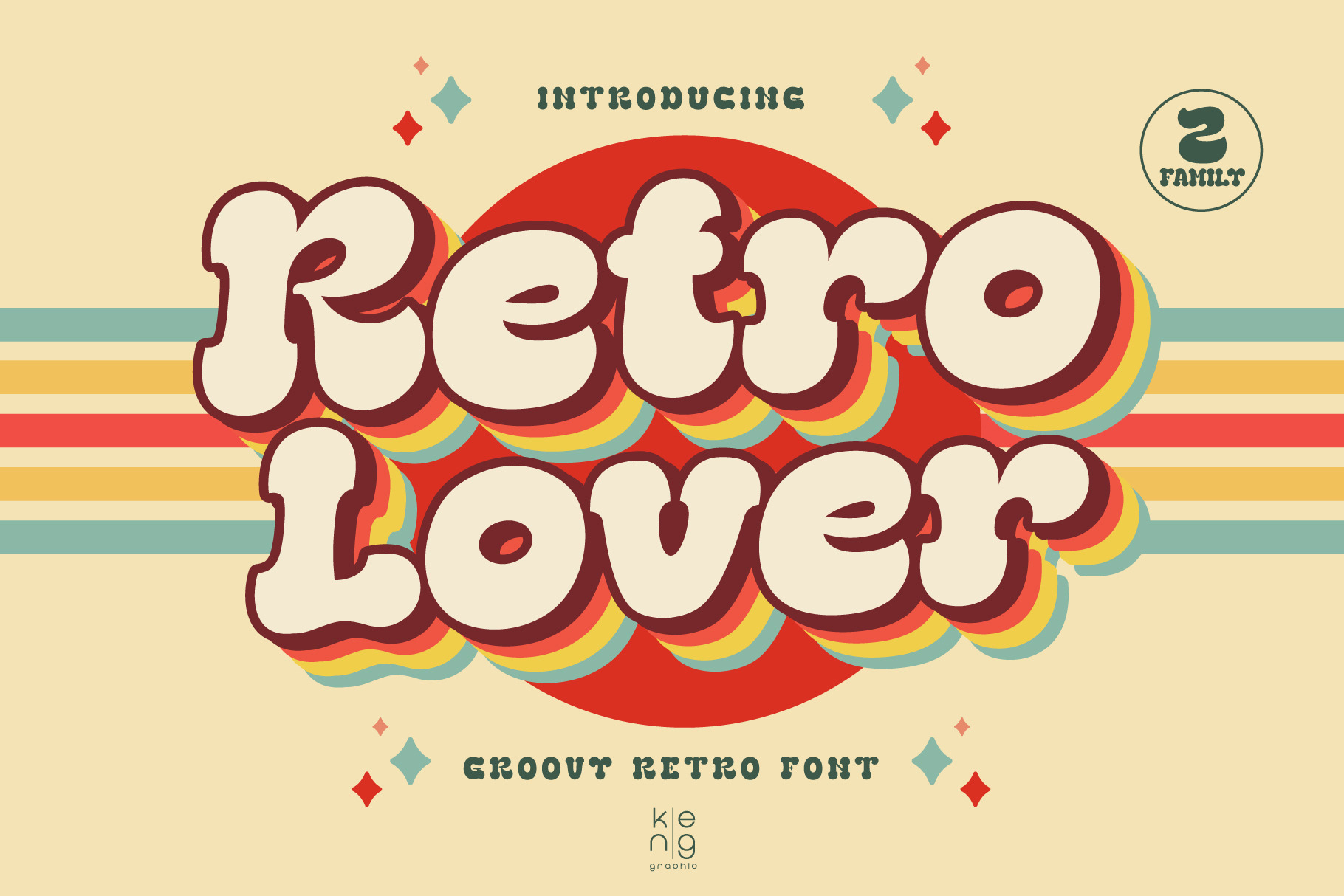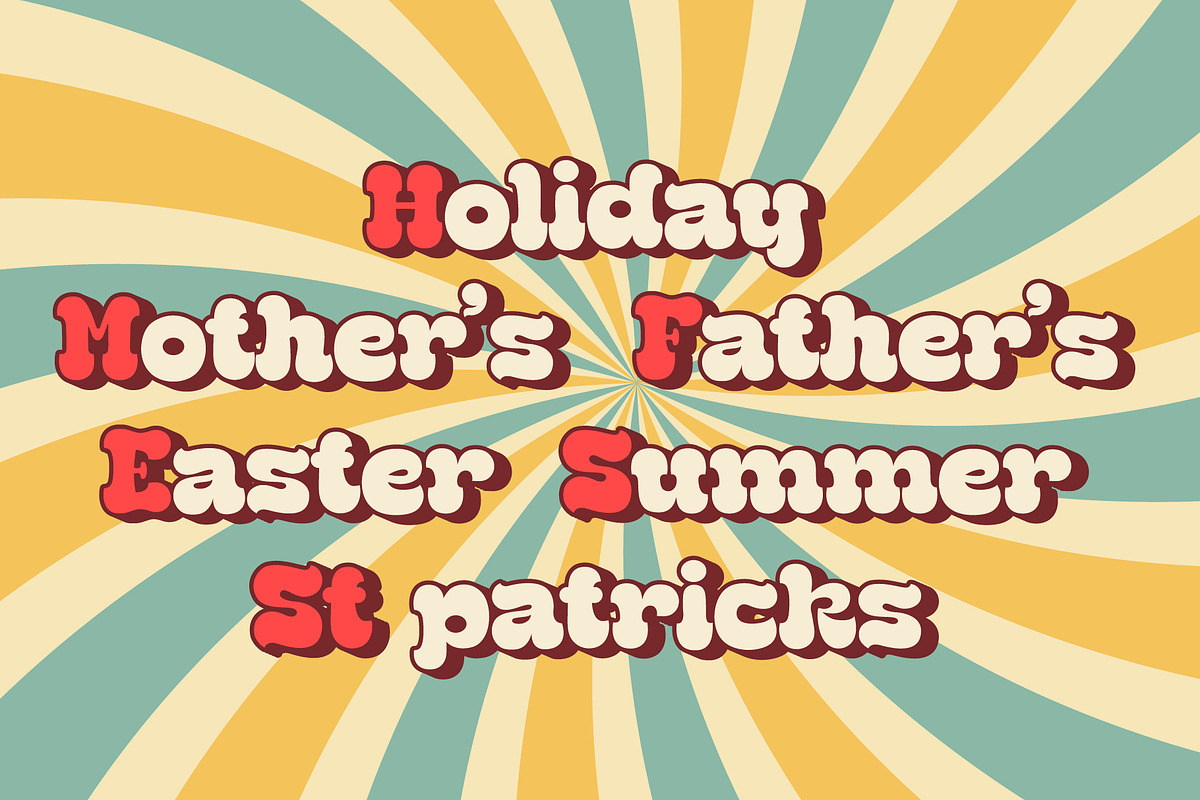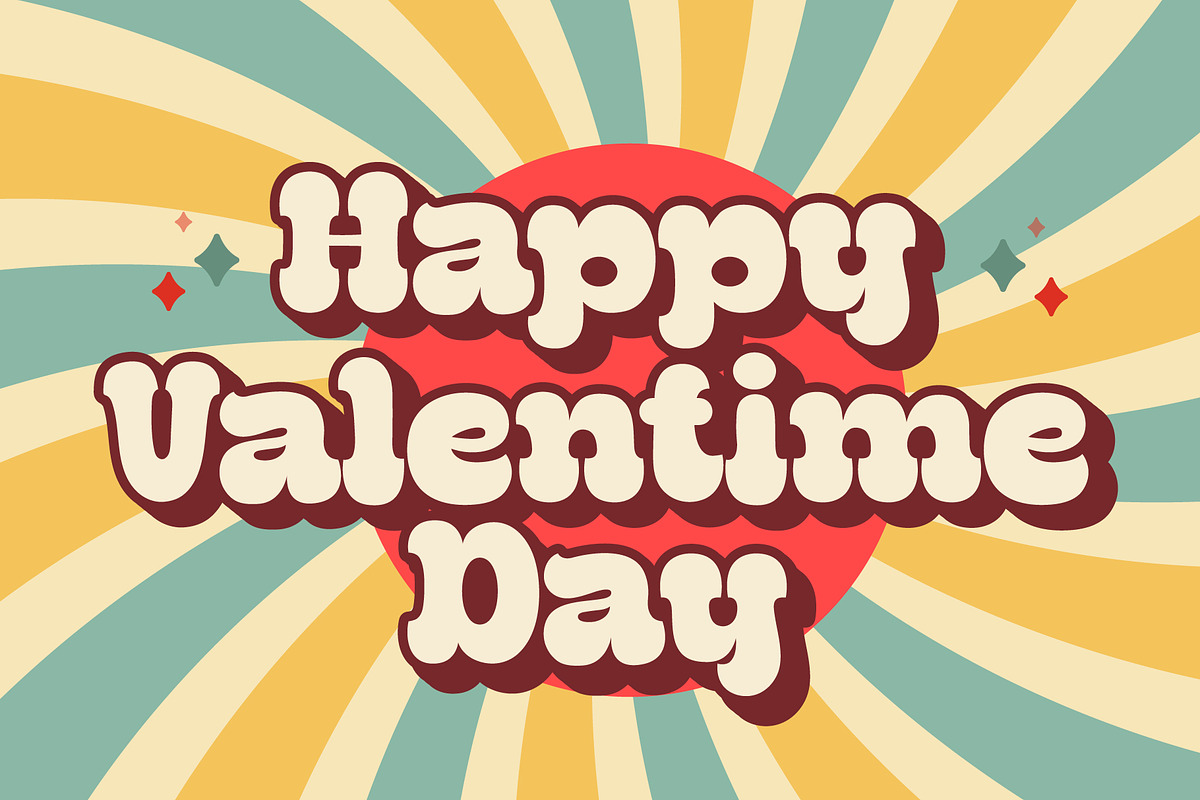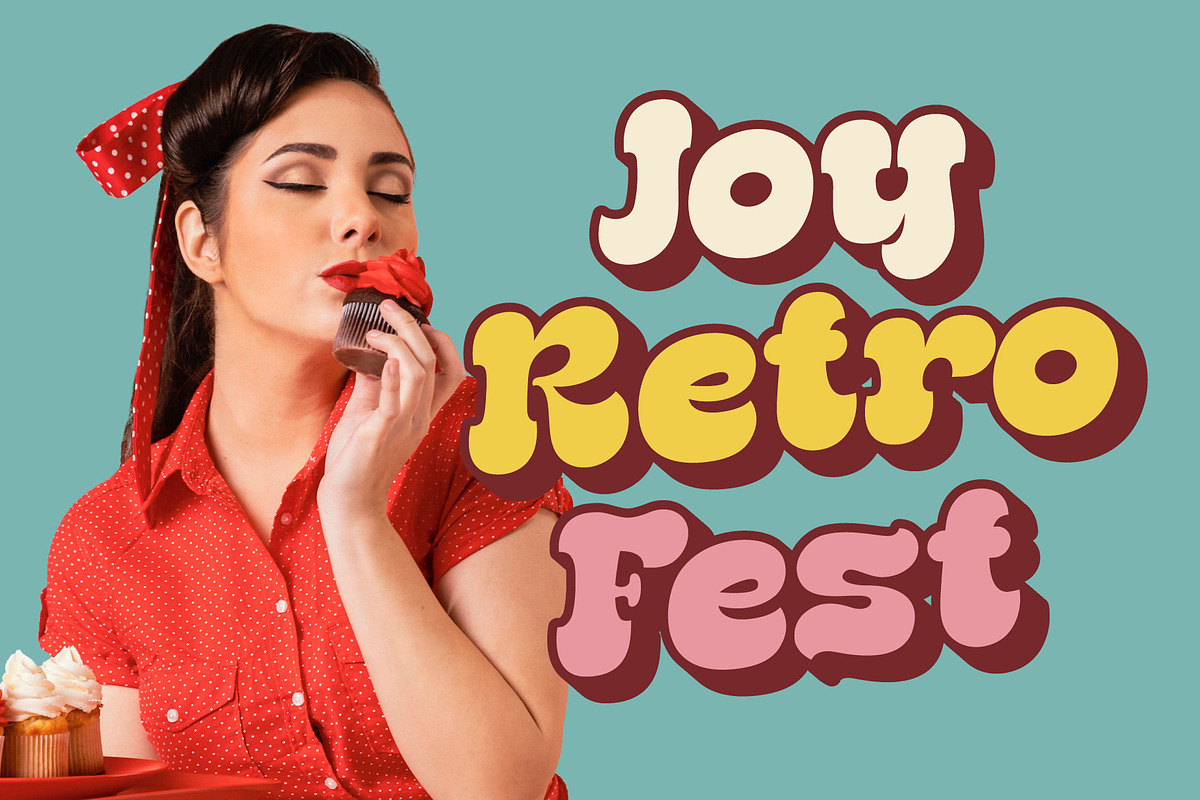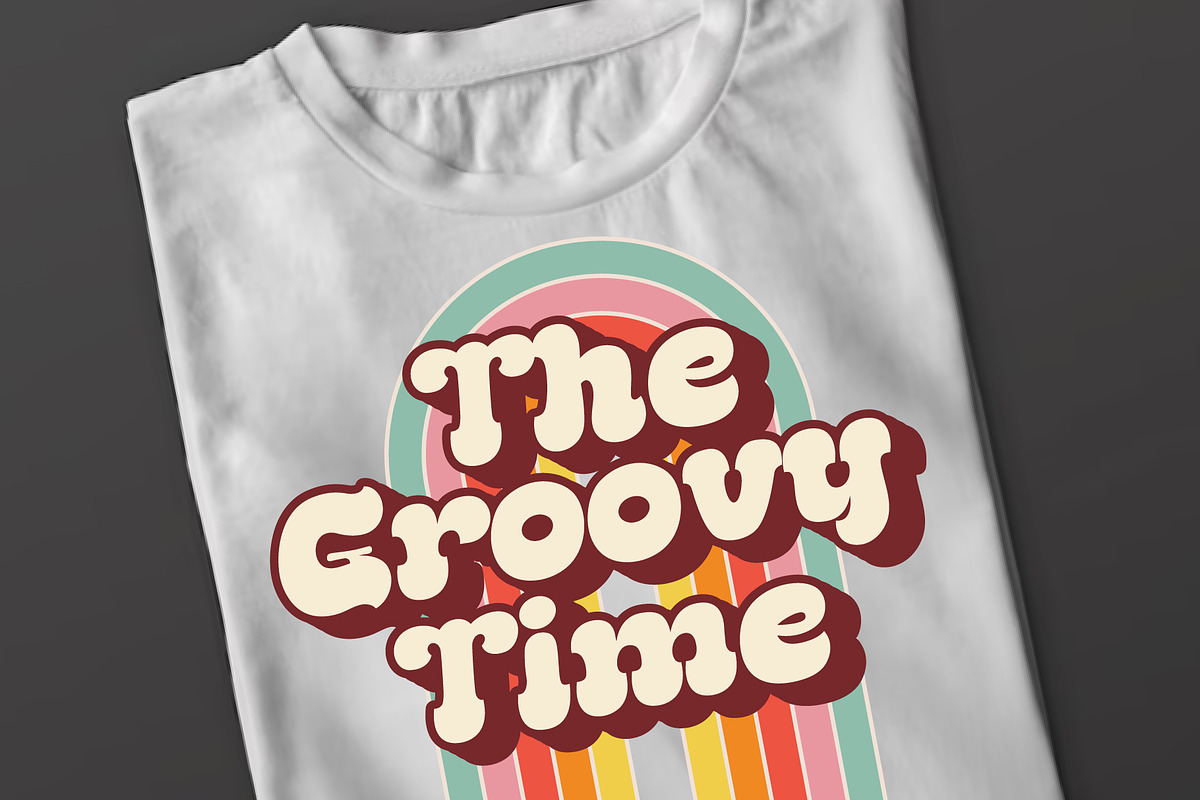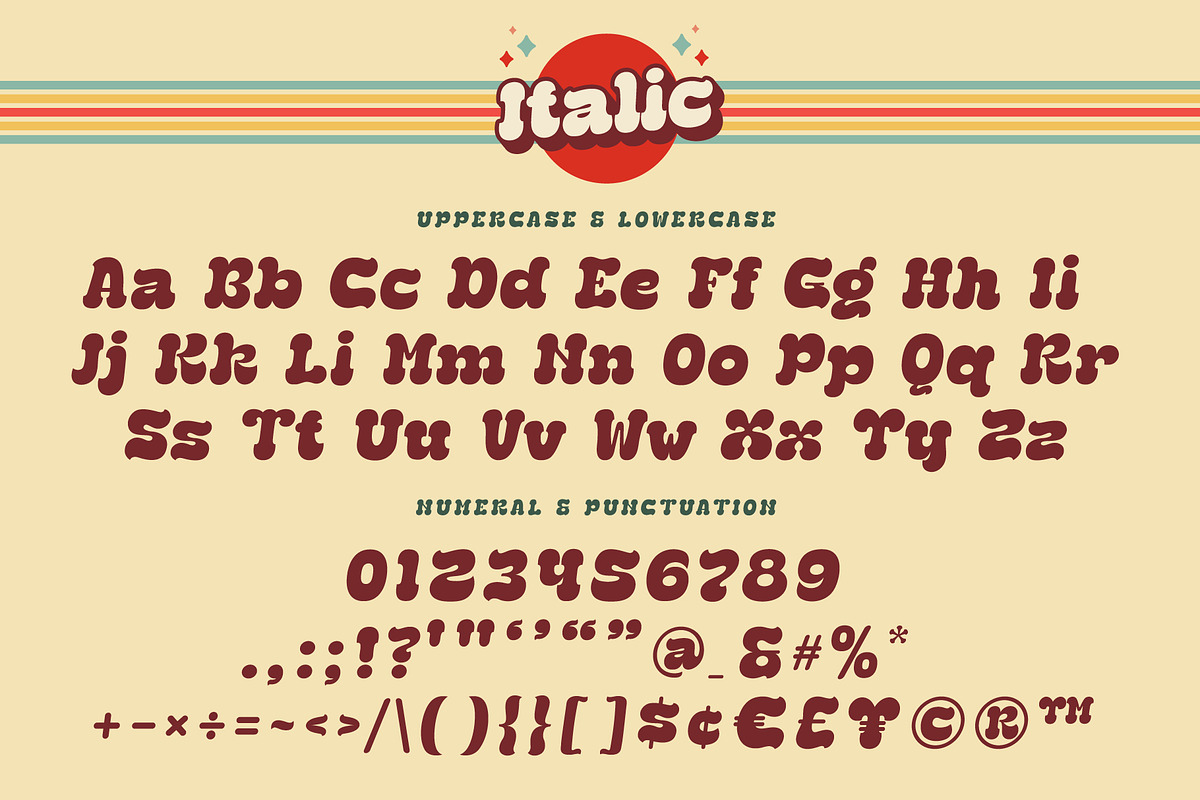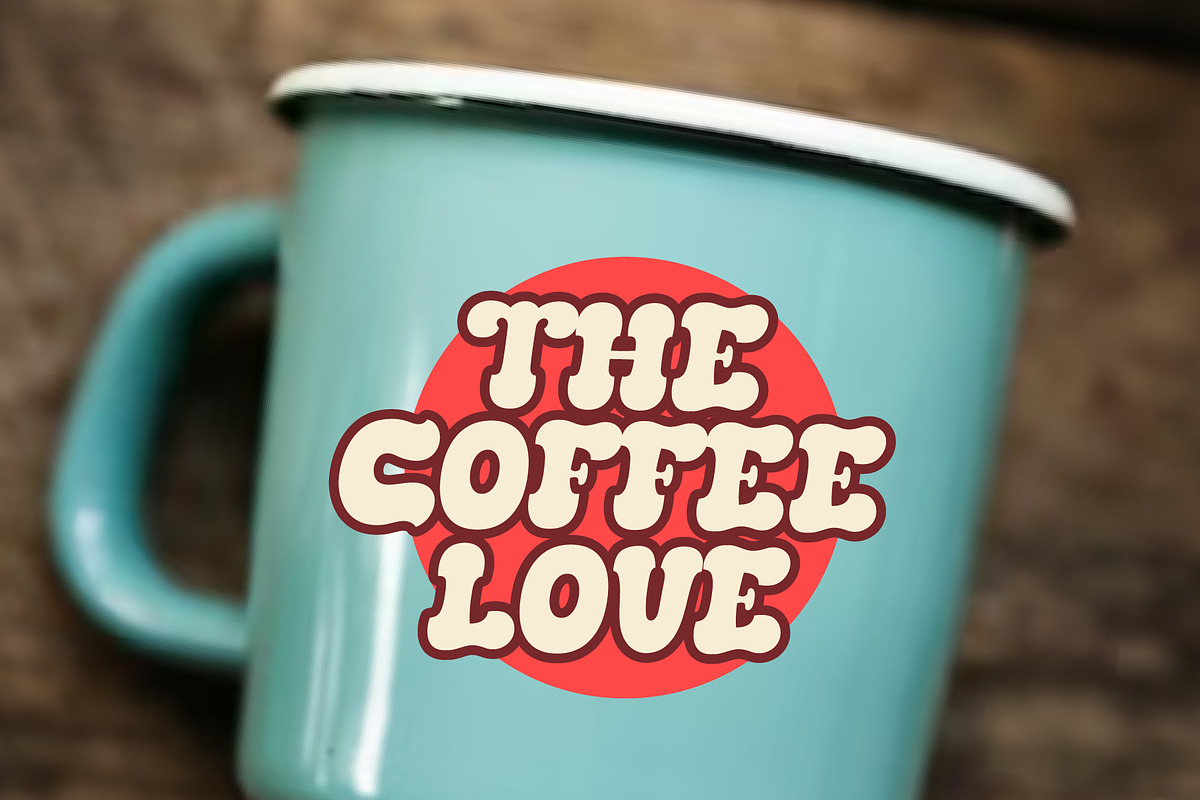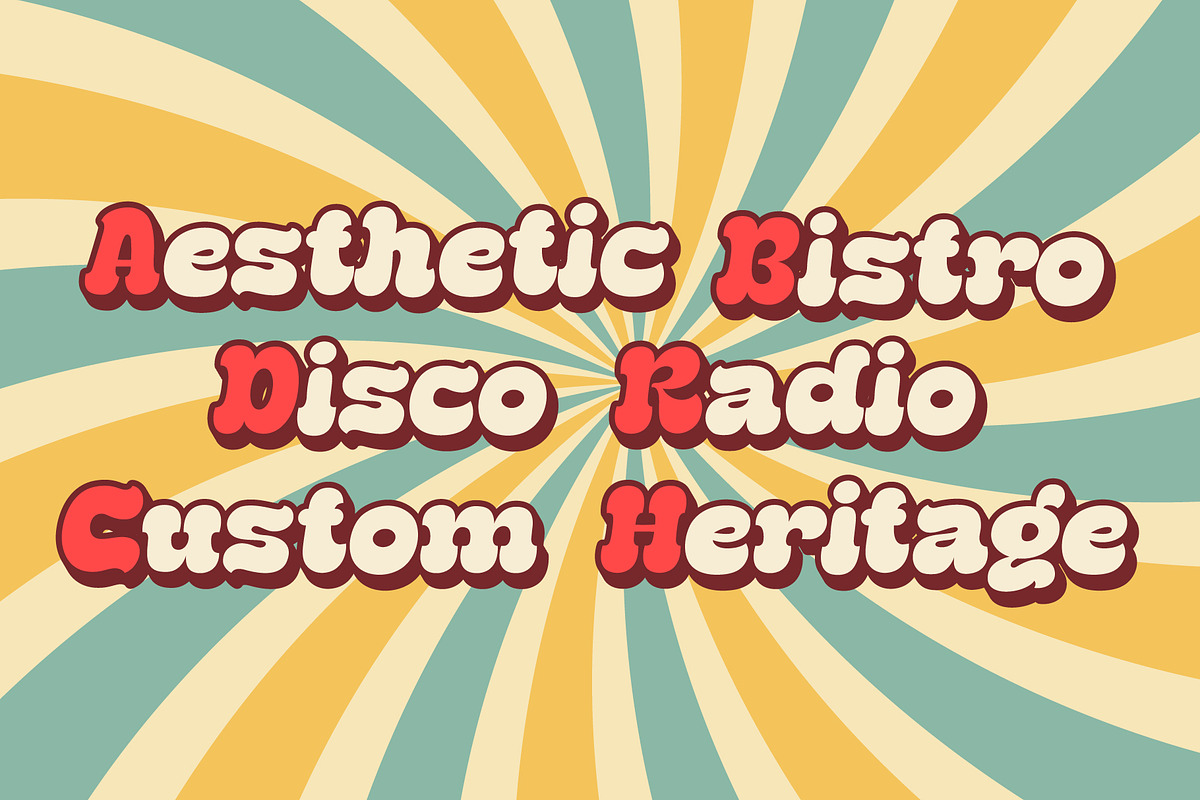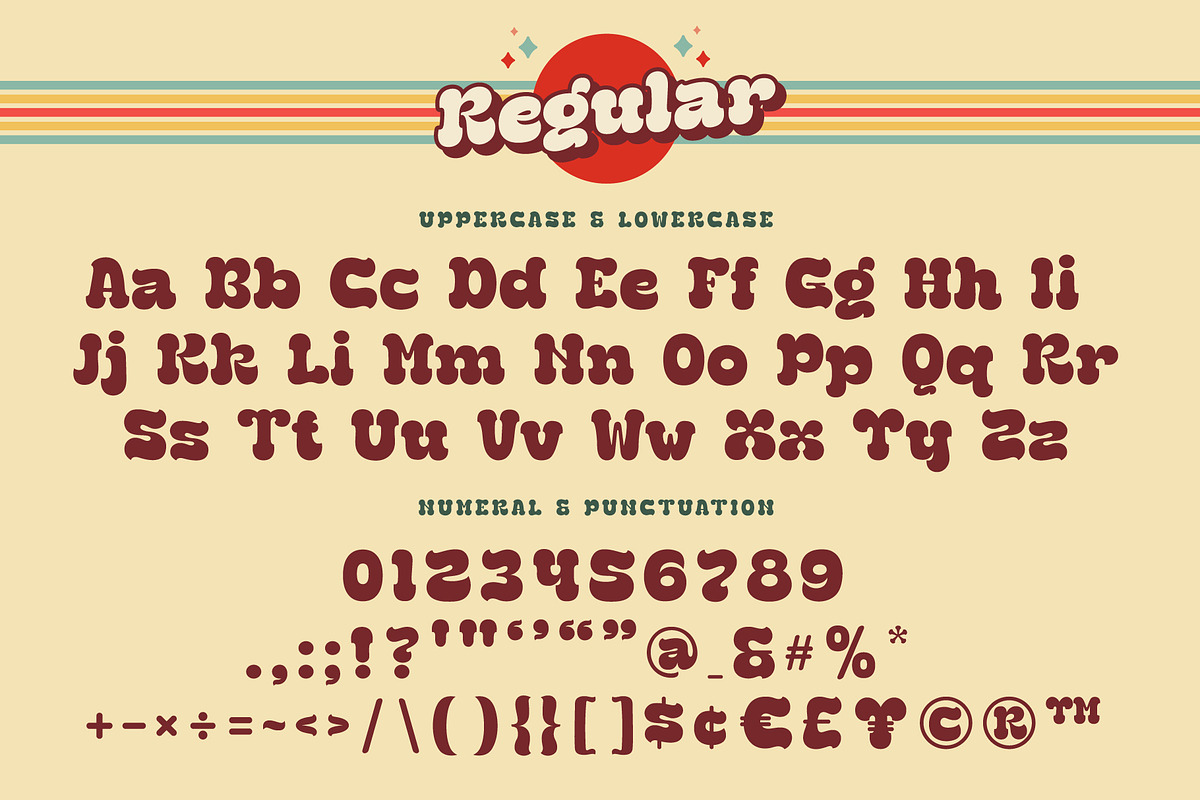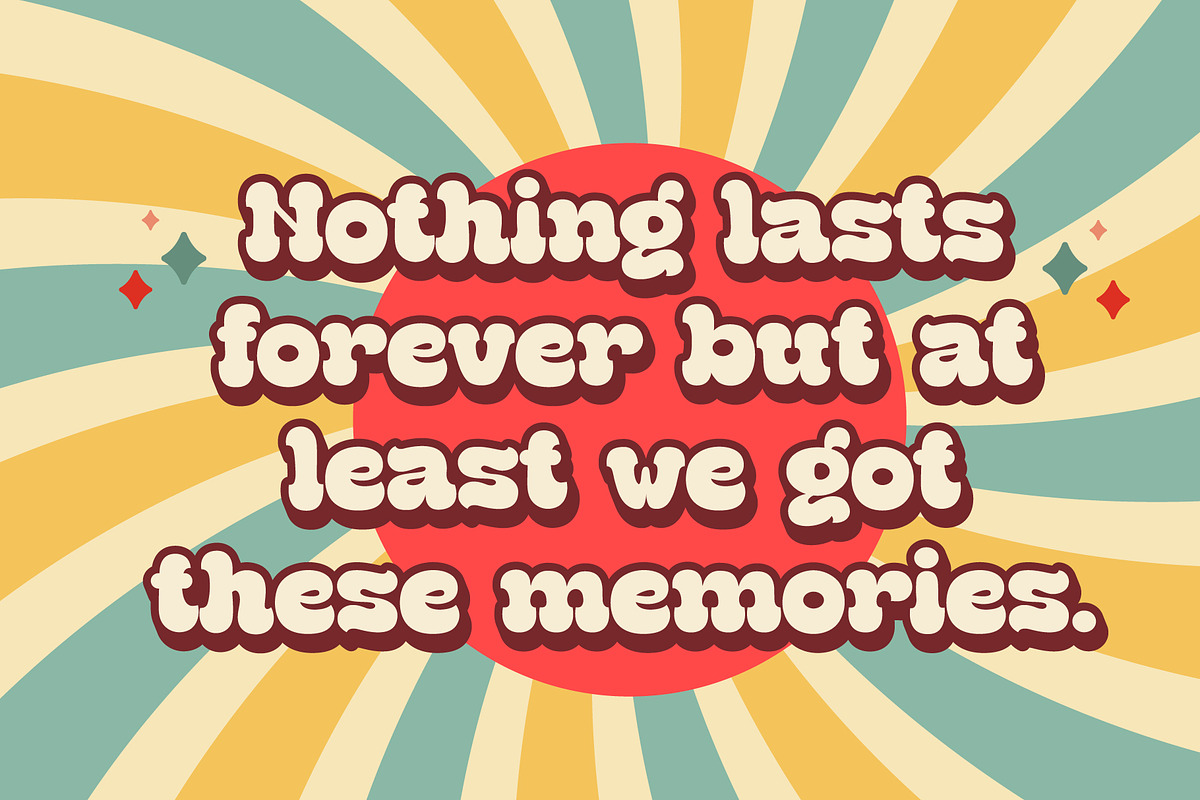
Retro Lover Font
Retro Lover is a vintage-style groovy retro font. Inspired by the retro typography and typography of the 60s 70s and 80s, anything written in this font is instantly recognizable and will grab attention. It has a unique shape where every corner is softer and more rounded. Use this display font to add a special retro touch to any design idea you can think of. Include file: OTF, TTF, and WOFF